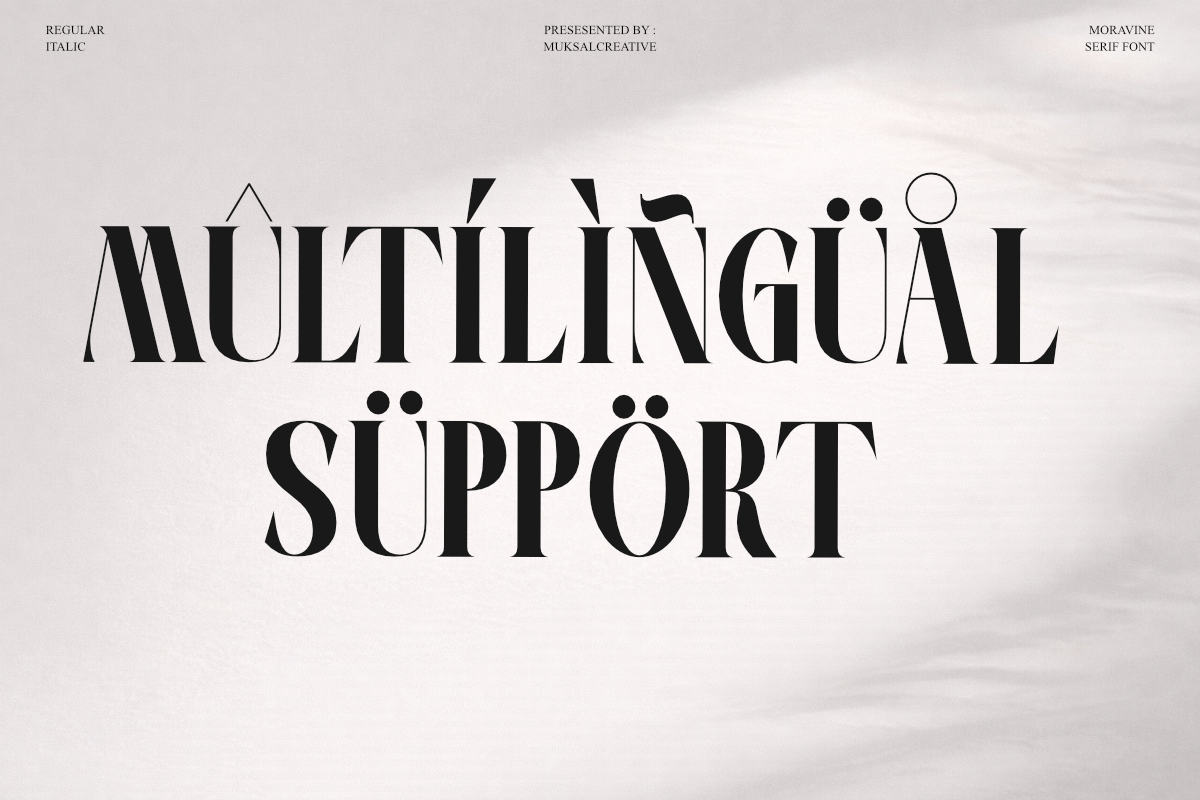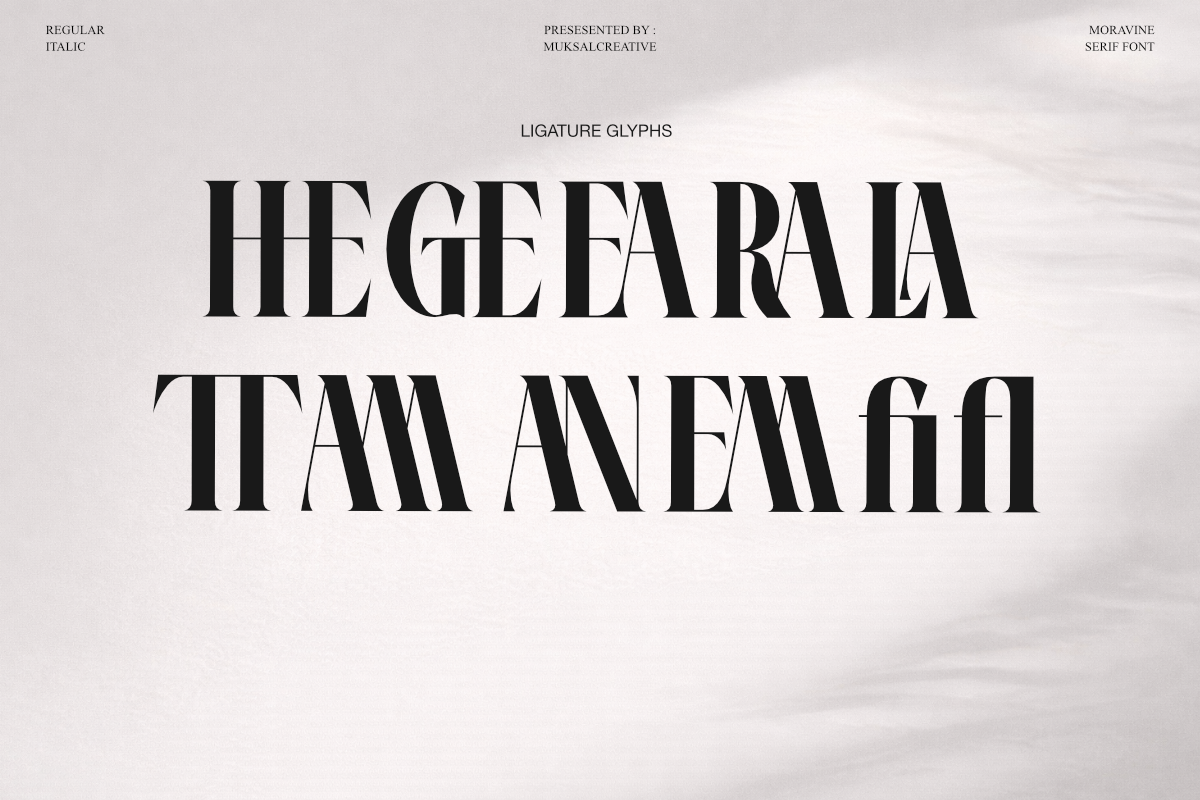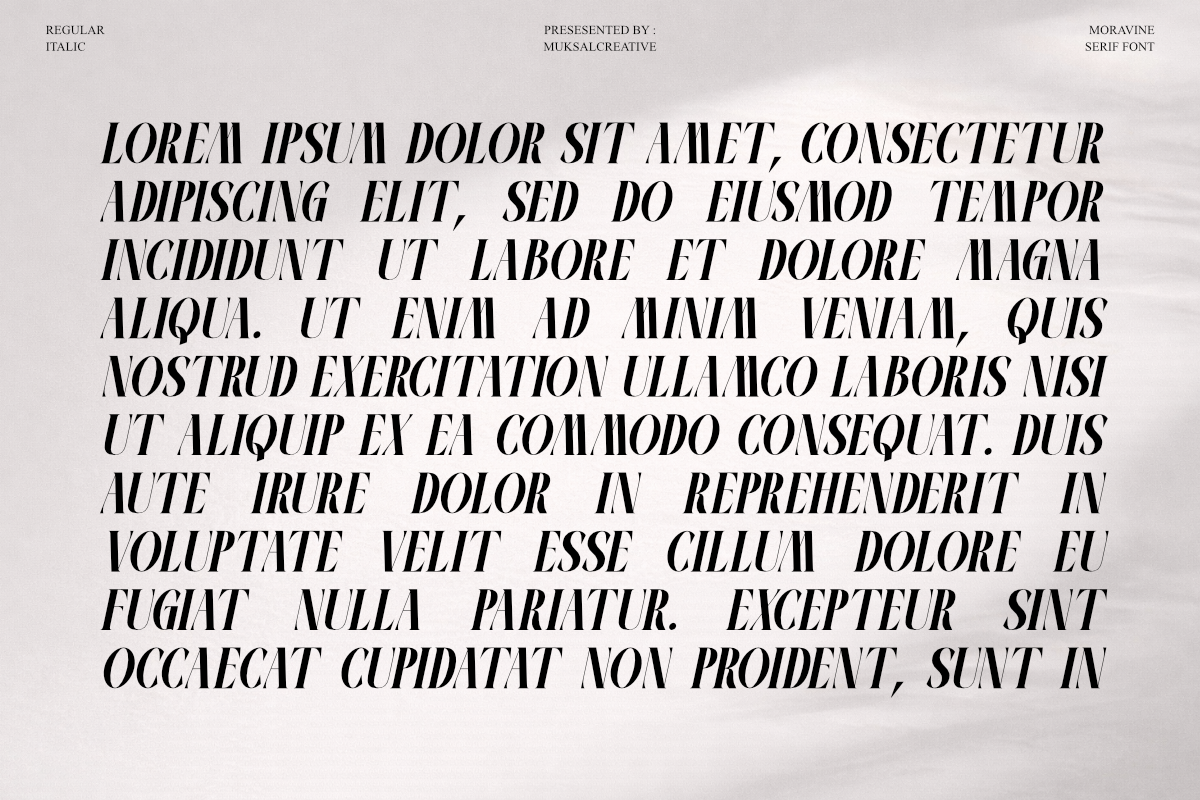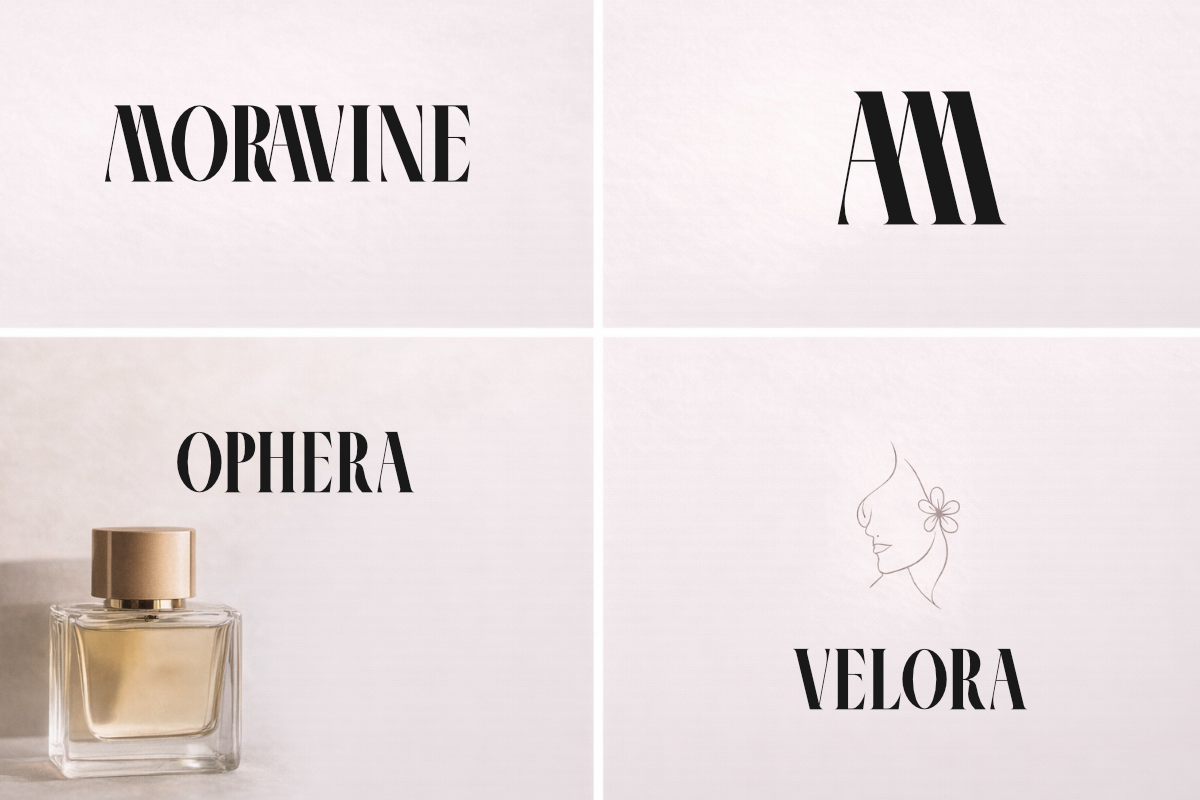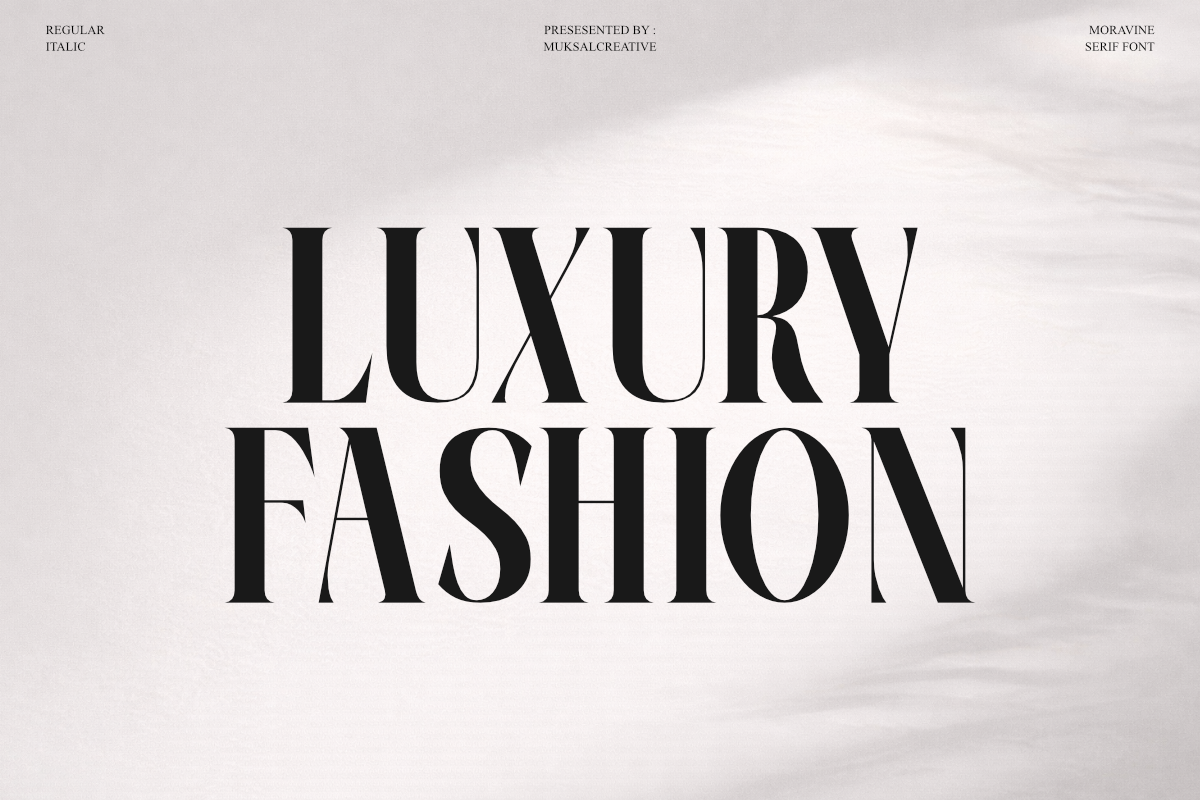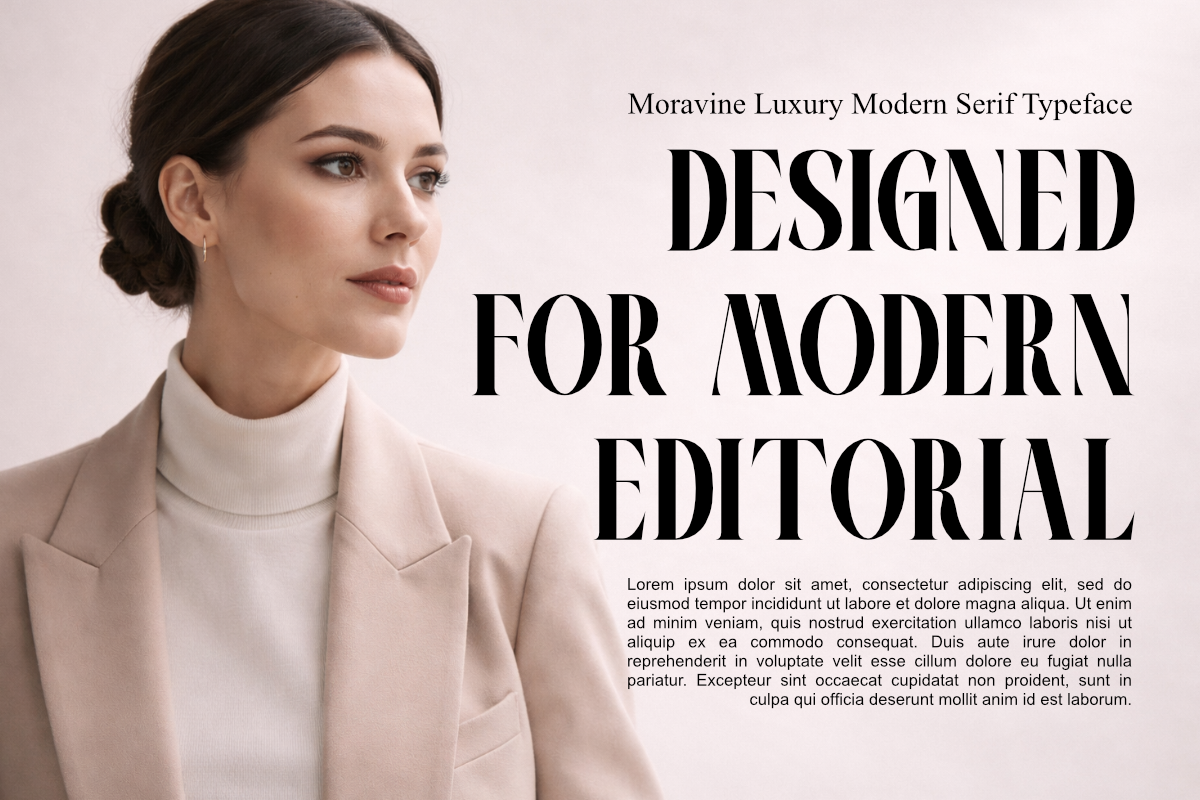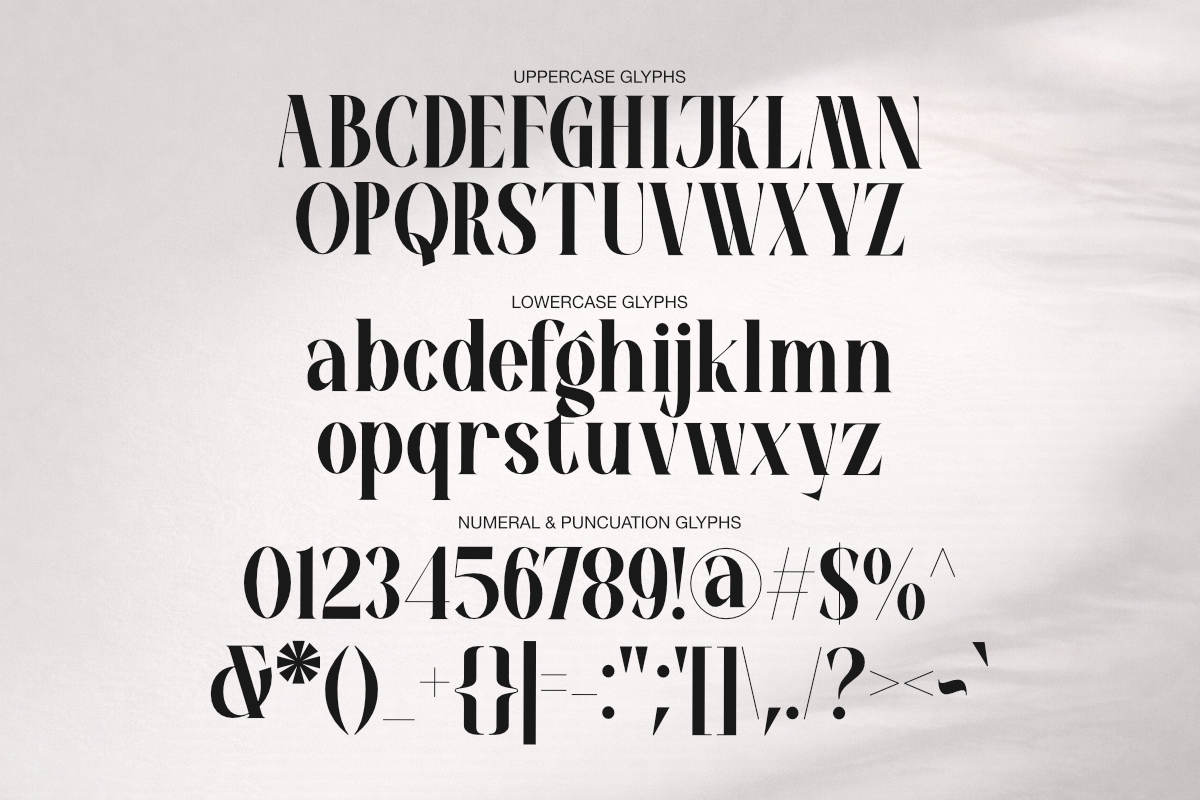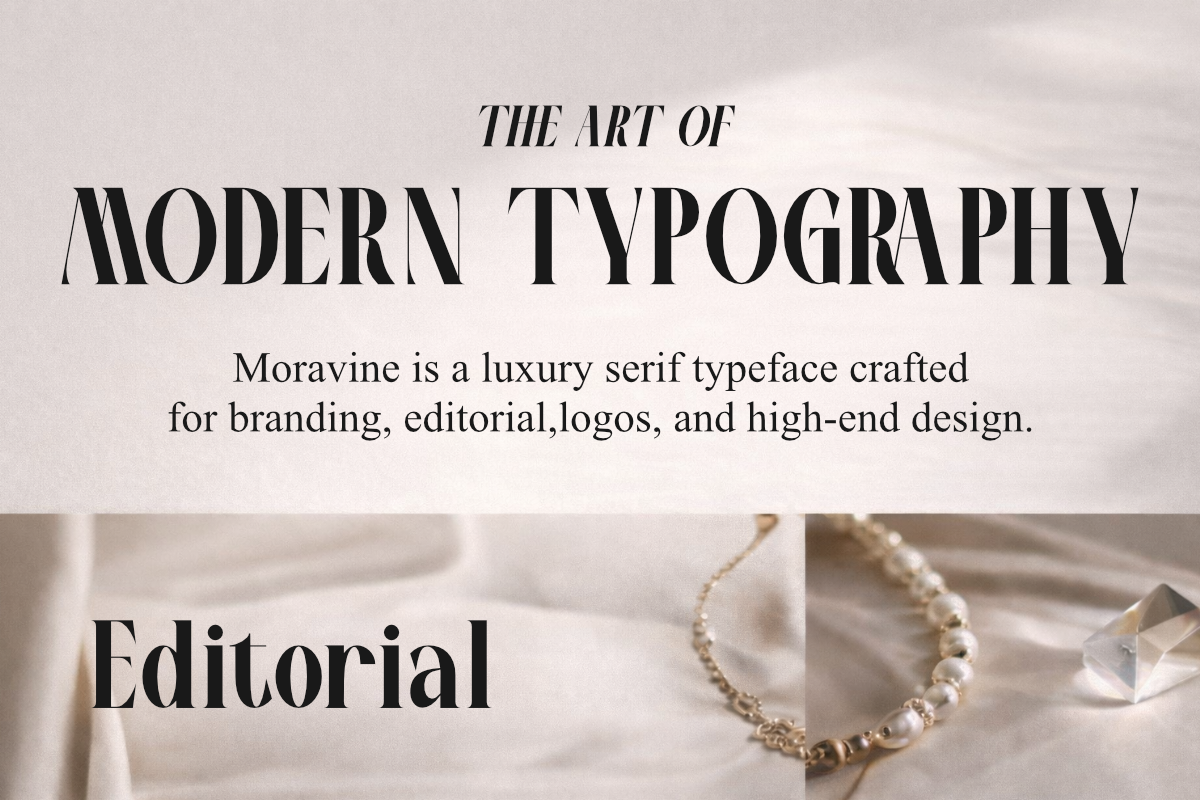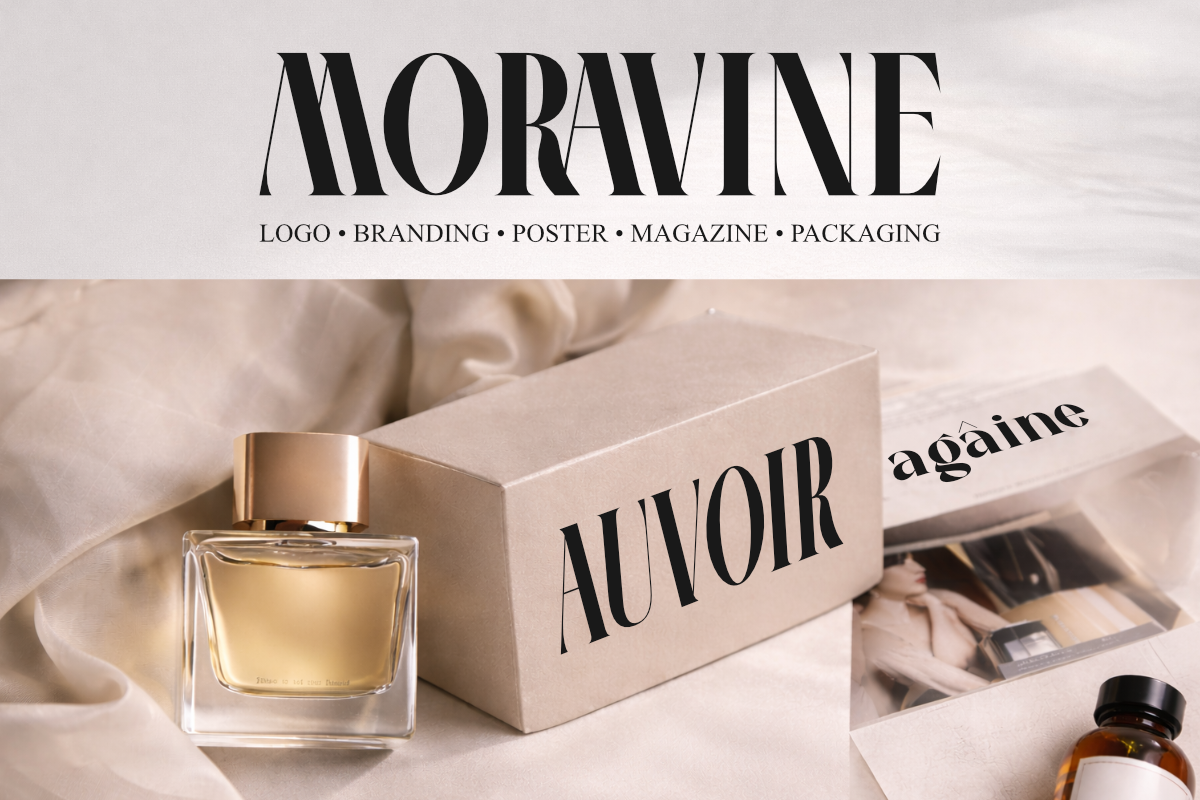
Moravine Modern Editorial Serif
MORAVINE Modern Editorial Serif Typeface Moravine is a modern editorial serif typeface designed with a refined, elegant, and high-contrast character. Inspired by fashion magazines, luxury branding, and contemporary editorial design, Moravine delivers a timeless yet modern look that elevates any visual identity. With sharp serif details and balanced proportions, Moravine performs beautifully in both large headlines and refined branding applications. This typeface is ideal for designers seeking a premium, sophisticated, and fashion-forward aesthetic.
Features: • Font formats: OTF, TTF, WOFF • 2 styles: Regular & Italic • Uppercase & lowercase letters • Numbers & punctuation • Ligatures • Multilingual support • Perfect for logos, magazines, and luxury packaging
Perfect for: • Logo & Branding • Editorial & Magazine Layouts • Fashion & Beauty Design • Posters & Advertising • Packaging & Luxury Branding • Website & Social Media Headlines